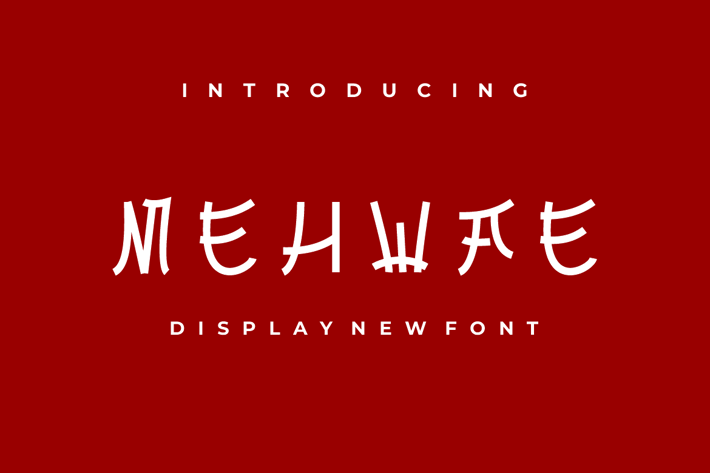
MEHWAE Font
Introducing our new product MEHWAE Font - Modern Font
MEHWAE Font - Modern Font is a bold and authentic display font. The font is suitable for any branding project like logo, t-shirt printing, esport, and many more. outstanding in a wide range of contexts.